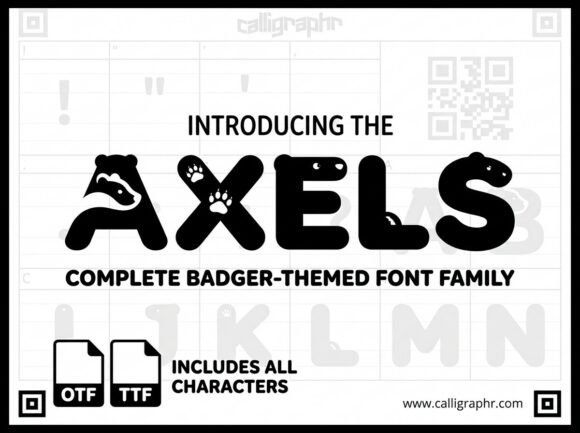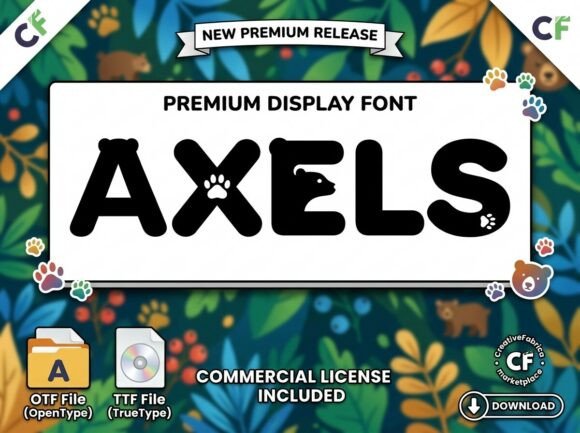
Introducing Axels Font: The Ultimate Display Typeface for Creative Rebels
Are you tired of using the same old fonts that blend in with the crowd? Look no further than Axels Font, an avant-garde decorative display font designed to make a statement. With its commanding visual personality and unique artistic flourishes, this typeface is perfect for creators who refuse to blend in.
Unleash Your Creativity with Axels Font
Axels Font is characterized by its strong, artistic soul and high-end, polished finish. This makes it suitable for a wide range of design applications, from luxury packaging to experimental editorial layouts. Whether you’re a graphic designer, craft brewer, or social media influencer, Axels Font is the perfect choice for adding a touch of sophistication and elegance to your work.
Ideal for High-Impact Designs
Axels Font is ideal for a variety of design projects, including:
- High-impact headlines that demand attention
- Signature logos and branding that make a lasting impression
- Conceptual packaging that stands out on store shelves
- Poster and social media design that needs to grab attention
What Sets Axels Font Apart
So, what makes Axels Font so special? Here are just a few features that set it apart:
- Unique Artistic Flourishes: Axels Font features intricate craftsmanship and unique artistic flourishes that add a touch of sophistication to any design.
- All-Caps Display Typeface: By focusing on uppercase characters only, Axels Font ensures that every letter is a standalone work of art.
- High-End Polish: Despite its bold and artistic personality, Axels Font maintains a high-end, polished finish that’s perfect for luxury brands.
Tips for Using Axels Font
Here are a few tips for getting the most out of Axels Font:
- Use it sparingly: Axels Font is a bold and attention-grabbing typeface, so use it sparingly to avoid overwhelming your design.
- Experiment with colors and textures: Axels Font looks great with bold colors and textures, so don’t be afraid to get creative.
- Pair it with a simple font: For body text, pair Axels Font with a simple and easy-to-read font to create visual contrast.
Axels Font is a game-changing display typeface that’s perfect for creative rebels who refuse to blend in. With its unique artistic flourishes, high-end polish, and bold personality, this font is sure to make a statement in any design. Whether you’re a graphic designer, craft brewer, or social media influencer, Axels Font is the perfect choice for adding a touch of sophistication and elegance to your work.